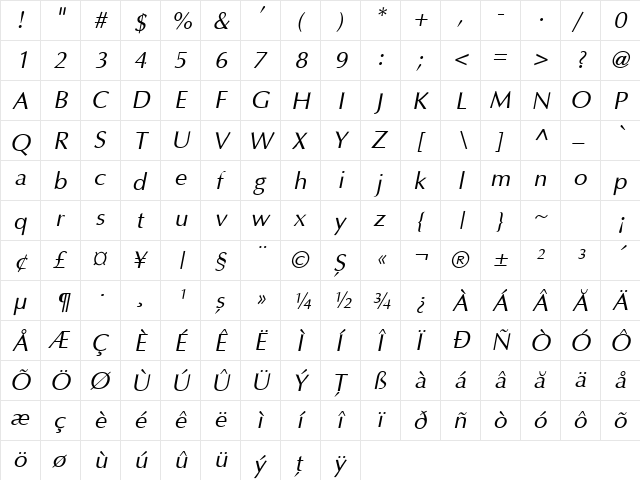
Ottawa Rom Italic
Design Context for Ottawa Rom Typeface
Ottawa Rom takes a measured approach to typography — its balanced proportions and neutral character make it a reliable workhorse for both digital and print work. The slanted form adds forward momentum and visual energy.
Pro Tip: Try Ottawa Rom for annotation and caption copy alongside an upright companion — the contrast in angle creates a dynamic but ordered typographic system.